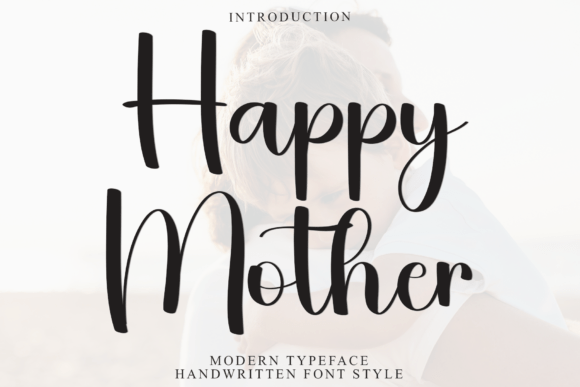
The Perfect Font to Bring Joy to Your Design
Have you ever been brainstorming a new project and suddenly, a spark of inspiration hits you? The ideas start flowing, and before you know it, your creative vision begins to take shape. This is exactly what happens when you discover the right font – and we’re excited to introduce you to one that will bring a smile to your face: Happy Mother Font.
This lovely and timeless handwritten font is perfect for creating eye-catching logos, branding, and quotes. Every letter has a unique and beautiful touch that will make your design come alive. As a designer, you’re constantly searching for the perfect font to elevate your work – and Happy Mother Font is a valuable addition to your toolkit.
Key Features of Happy Mother Font
- Unique Characteristics: The font features a playful and modern design, with a unique blend of rounded and geometric shapes, making it perfect for creating eye-catching and engaging designs.
Happy Mother Font Review
As a designer, I’ve had the chance to work with the Happy Mother Font and here’s my honest review. ✨
- The font’s friendly and approachable feel makes it perfect for projects that require a warm and inviting tone.
- The font’s versatility allows it to work well in both digital and print designs.
- The font’s OpenType features make it easy to customize and add flair to your designs.
However, there are some limitations:
- ⚠️ The font’s character set is limited, which may cause issues when working with non-English text.
- ⚠️ The font’s weight and spacing options are limited, which may require additional design work to achieve the desired look.
Overall, I think the Happy Mother Font is a solid choice for designers looking for a friendly and approachable font. While it has some limitations, its versatility and OpenType features make it a great addition to any design toolbox. With some careful planning and design work, the Happy Mother Font can be a great choice for a wide range of projects.
The Happy Mother Font is ideal for:
- Family and parenting-related designs.
- Children’s birthday invitations and party decorations.
- Mothers’ Day and Motherhood-themed designs.
- Whimsical and
Alternatives to Happy Mother Font
Great Vibes Font is a modern, elegant, and flowing script font. It is ideal for creating invitations, quotes, and other creative designs. It has a more refined and sophisticated look compared to Happy Mother Font, making it suitable for high-end or luxury brands.
Carolyna Pro Font is a high-end, elegant script font with a touch of luxury. It is perfect for creating high-end branding, luxury packaging, and sophisticated designs. Compared to Happy Mother Font, Carolyna Pro has a more refined and polished look, making it ideal for upscale brands.
What is the character set of the Happy Mother Font?
The Happy Mother Font includes a comprehensive character set, including Latin, Cyrillic, and Greek alphabets, as well as punctuation marks, numbers, and special characters. The font also includes a range of ligatures, swashes, and ornaments for added design flexibility.